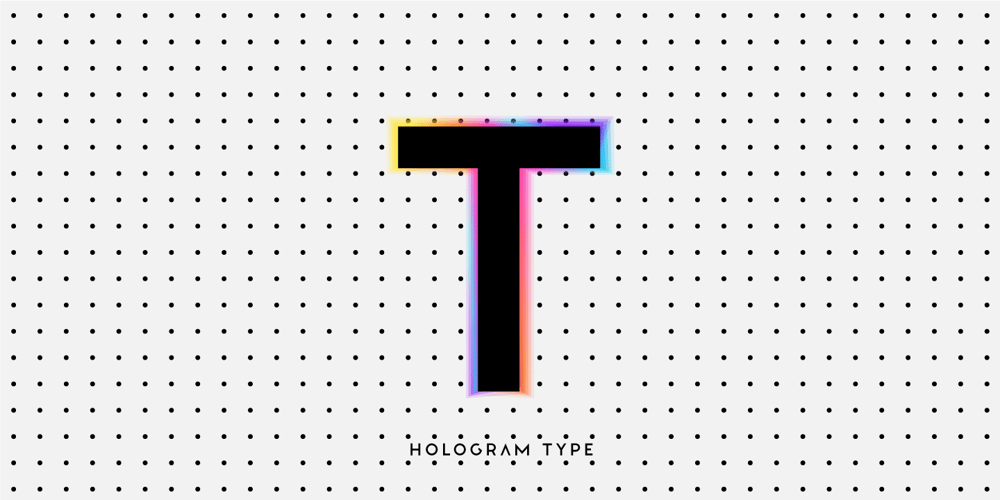
Culoare Font Family was designed by Lauritta Ivanova and published by Luxfont. Culoare contains 12 styles and family package options. Introducing space-bright COLORED hologram font. Soft color transitions combined with minimalistic clean glyphs. Ideal for modern web and print design. Excellent readability of glyphs for both the title and the large volume of text is preserved. Multi-colored modern family with different types of coloring – a highlighted gradient border of letters or fully hologram glyphs – a large selection of 11 ready-made font styles. Originality of the font will fit well into the fashionable logo, headline in the magazine or on the website, emphasize the trend of the product in branding and complement web advertising on social media. This font family is based on the Regular font Boldini – which means that if necessary you can combine these two families and they will be absolutely stylistically identical and complement each other.Check the quality before purchasing and try the FREE DEMO version of the font to make sure your software supports color fonts.Features: Free Demo font to check it works. 11 OTF SVG color fonts in the family Free Demo font to check it works. Gradient and hologram fonts Kerning IMPORTANT:- OTF SVG fonts contain vector letters with gradients and transparency.- Multicolor OTF version of this font will show up only in apps that are compatible with color fonts, like Adobe Photoshop CC 2017.0.1 and above, Illustrator CC 2018. Learn more about color fonts & their support in third-party apps on www.colorfonts.wtf-Don’t worry about what you can’t see the preview of the font in the tab “Individual Styles” – all fonts are working and have passed technical inspection, but not displayed, they just because the website MyFonts is not yet able to show a preview of colored fonts. Then if you have software with support colored fonts – you can be sure that after installing fonts into the system you will be able to use them like every other classic font. Question/answer: How to install a font? The procedure for installing the font in the system has not changed. Install the font as you would install the classic OTF | TTF fonts. How can I change the font color to my color? · Adobe Illustrator:Convert text to outline and easily change color to your taste as if you were repainting a simple vector shape. · Adobe Photoshop: You can easily repaint text layer with Layer effects and color overlay. ld.luxfont@gmail.com